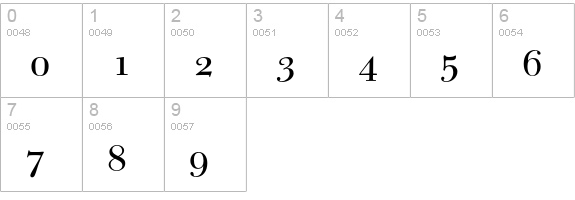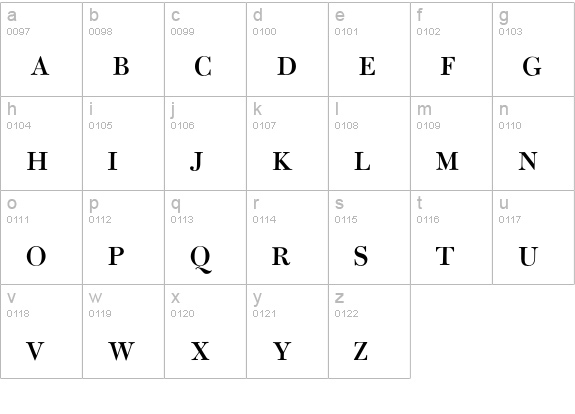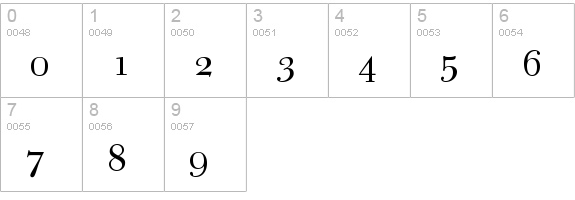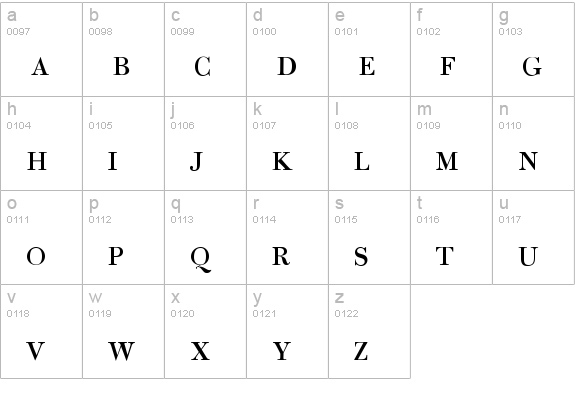
Bulmer-Alternates Font Details
Bulmer-Alternates font is a classic and elegant typeface that exudes sophistication and charm. With its clean lines and balanced curves, this font is perfect for both formal and creative projects. The alternate versions of certain characters add a unique touch to your designs, making them stand out from the crowd. What makes Bulmer-Alternates font even more appealing is that it is completely free to download at FontsMarket.com. This means that you can access this high-quality font without any cost, making it a valuable addition to your font collection. Whether you are designing a logo, creating a poster, or working on a branding project, Bulmer-Alternates font is sure to elevate your work with its timeless appeal. Download it today and add a touch of class to your designs.